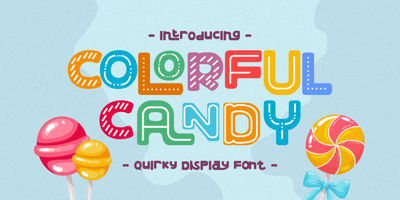
Colorful Candy
Colorful Candy font
Colorful Candy Font Family was designed by Putra Novembria Candra Kusuma and published by Putracetol. Colorful Candy contains 2 styles and family package options. Colorful Candy is funny hand letering font make from hand lettering ideas in typeface. Each one works perfectly in conjunction with the others so you can mix and match them until your hearts content! The possibilities really are endless and all styles are useful for so many different designs – have fun using it!Colorful Candy a super fun and playful hand-lettered bold typeface. It is perfect for story books, illustrations, comic books, t-shirts, posters, greeting cards, logos, branding, stickers, svg, crafting and all for display purposes.The alternative characters were divided into several Open Type features such as Swash, Stylistic Sets, Stylistic Alternates, Contextual Alternates, and Ligature. The Open Type features can be accessed by using Open Type savvy programs such as Adobe Illustrator, Adobe InDesign, Adobe Photoshop Corel Draw X version, And Microsoft Word. This font is also support multi language.